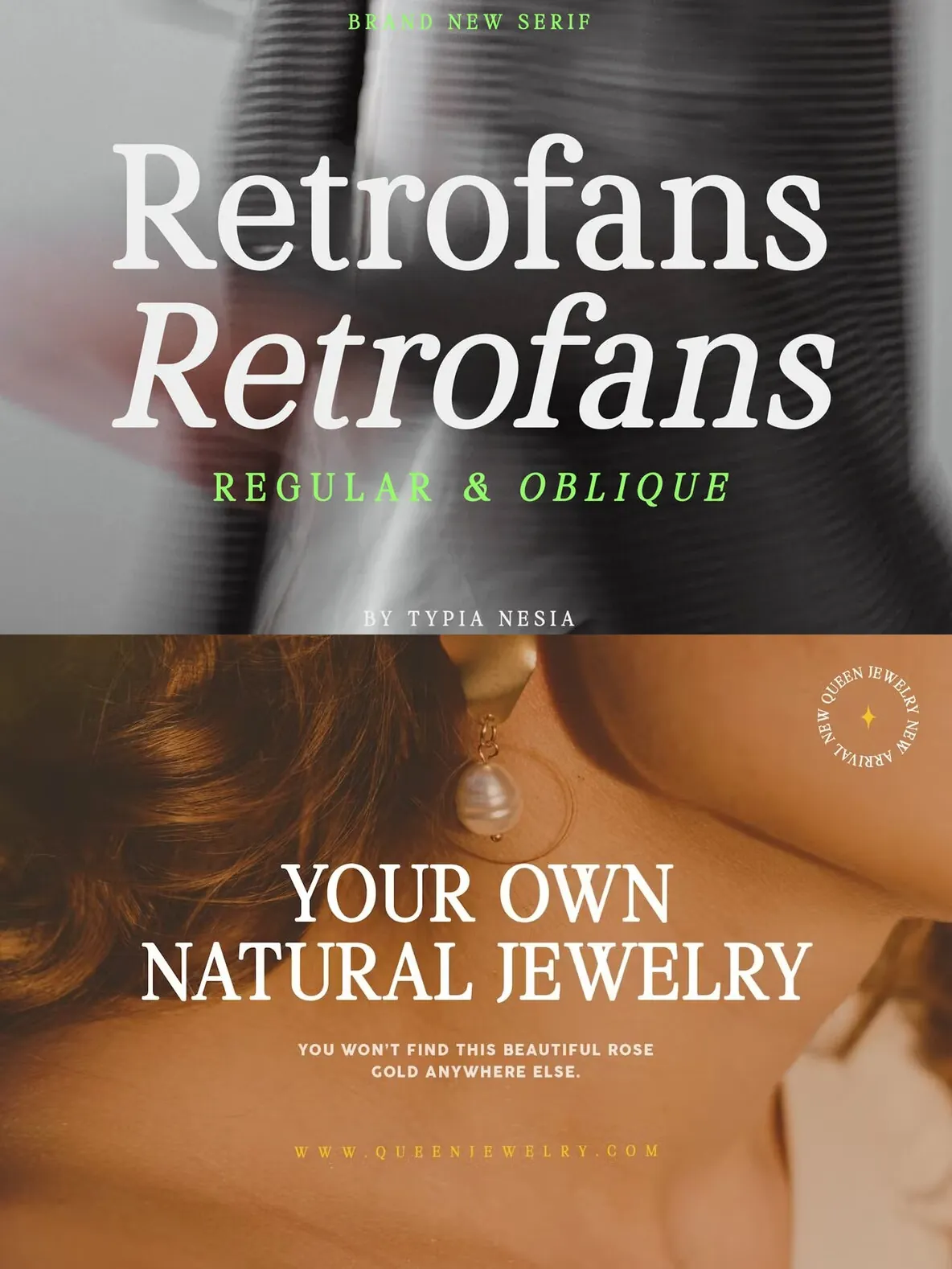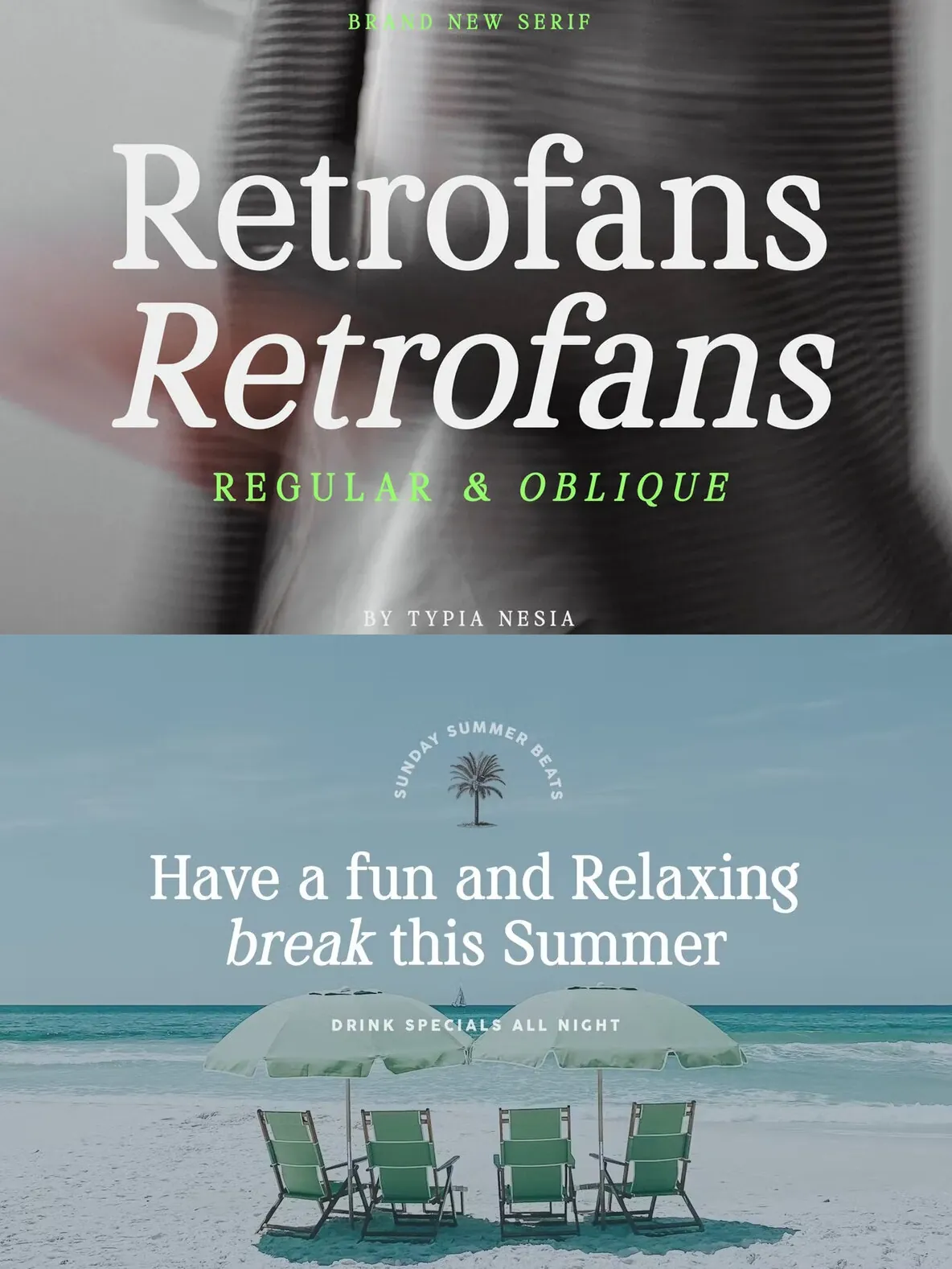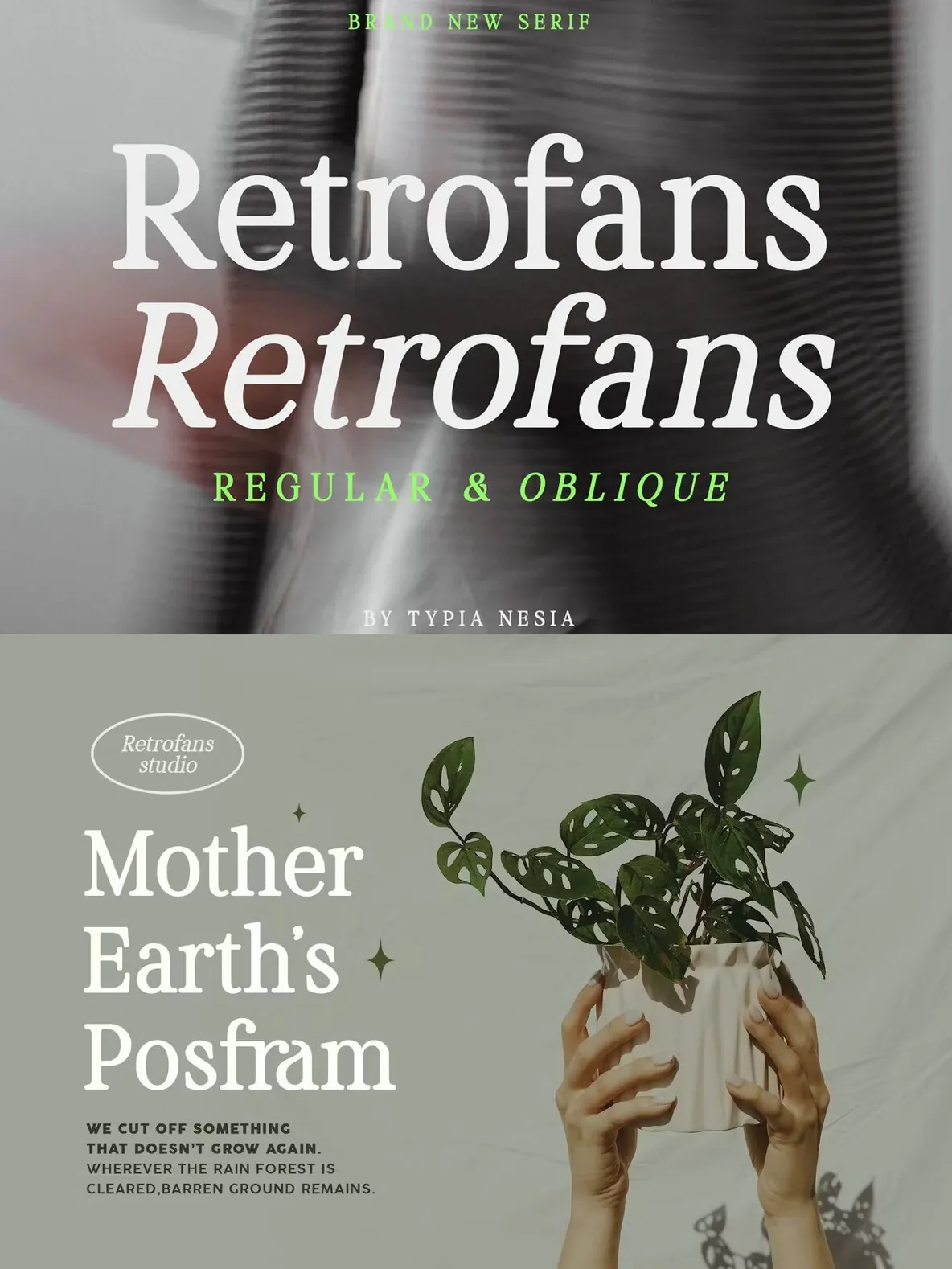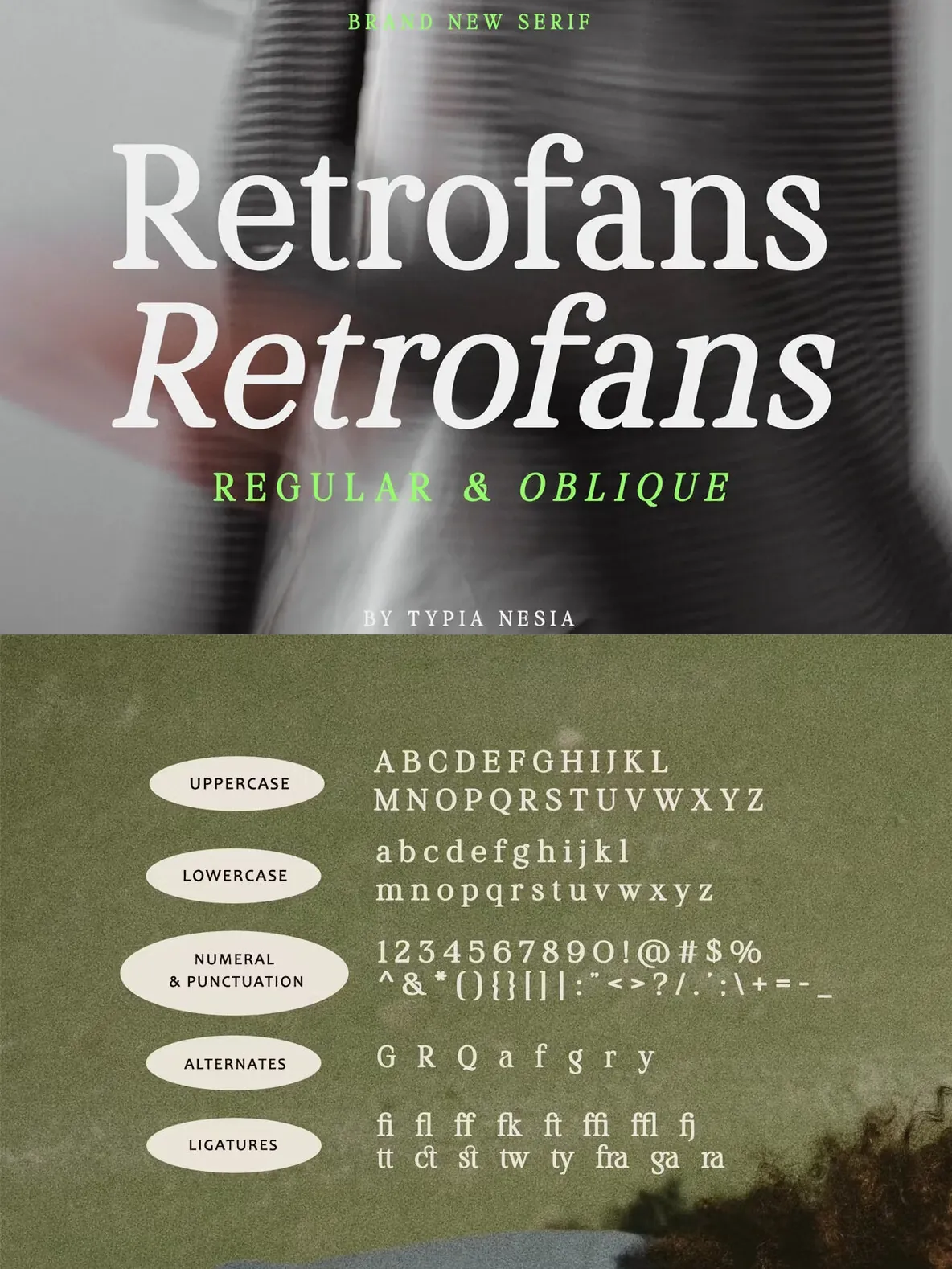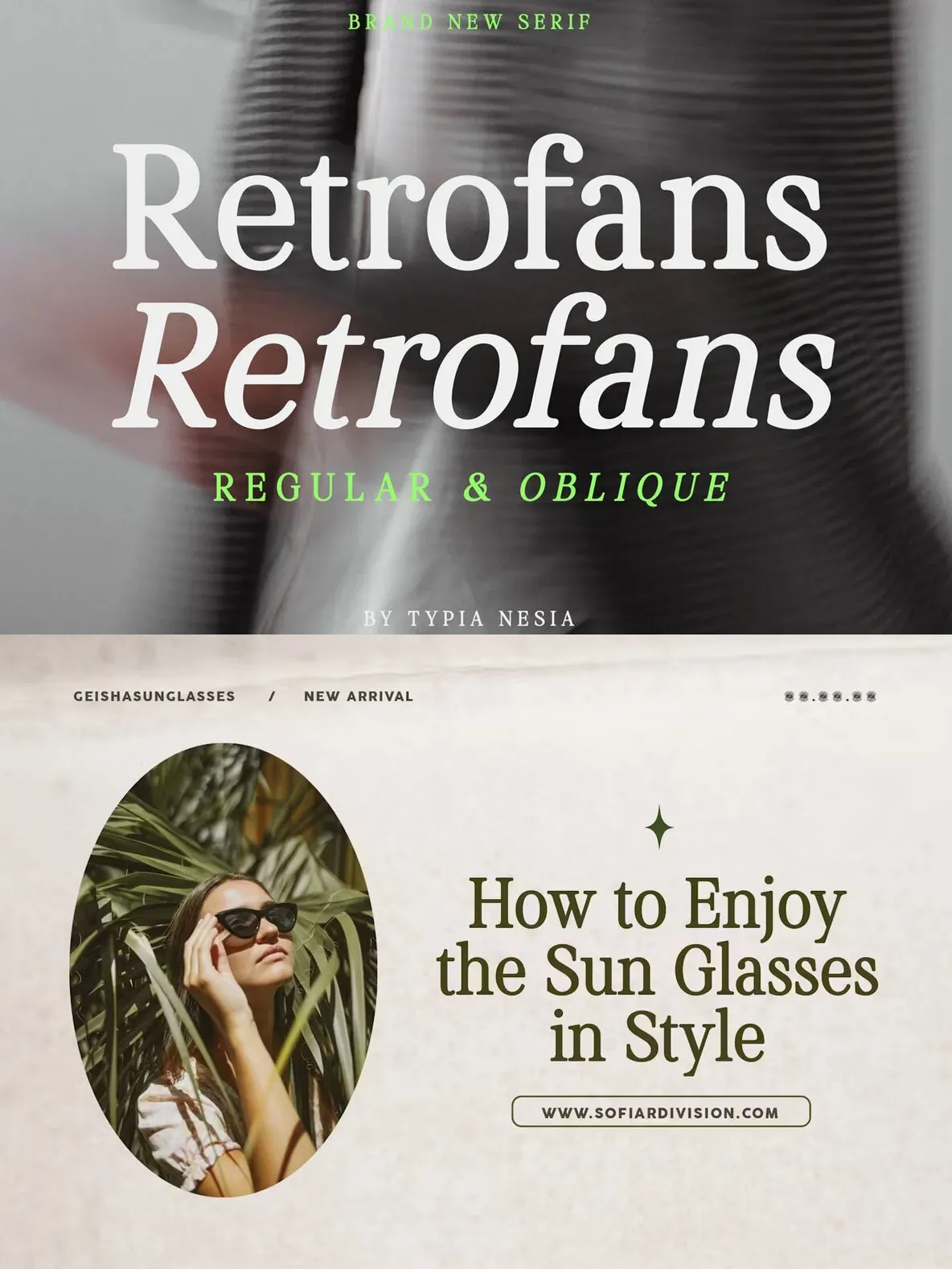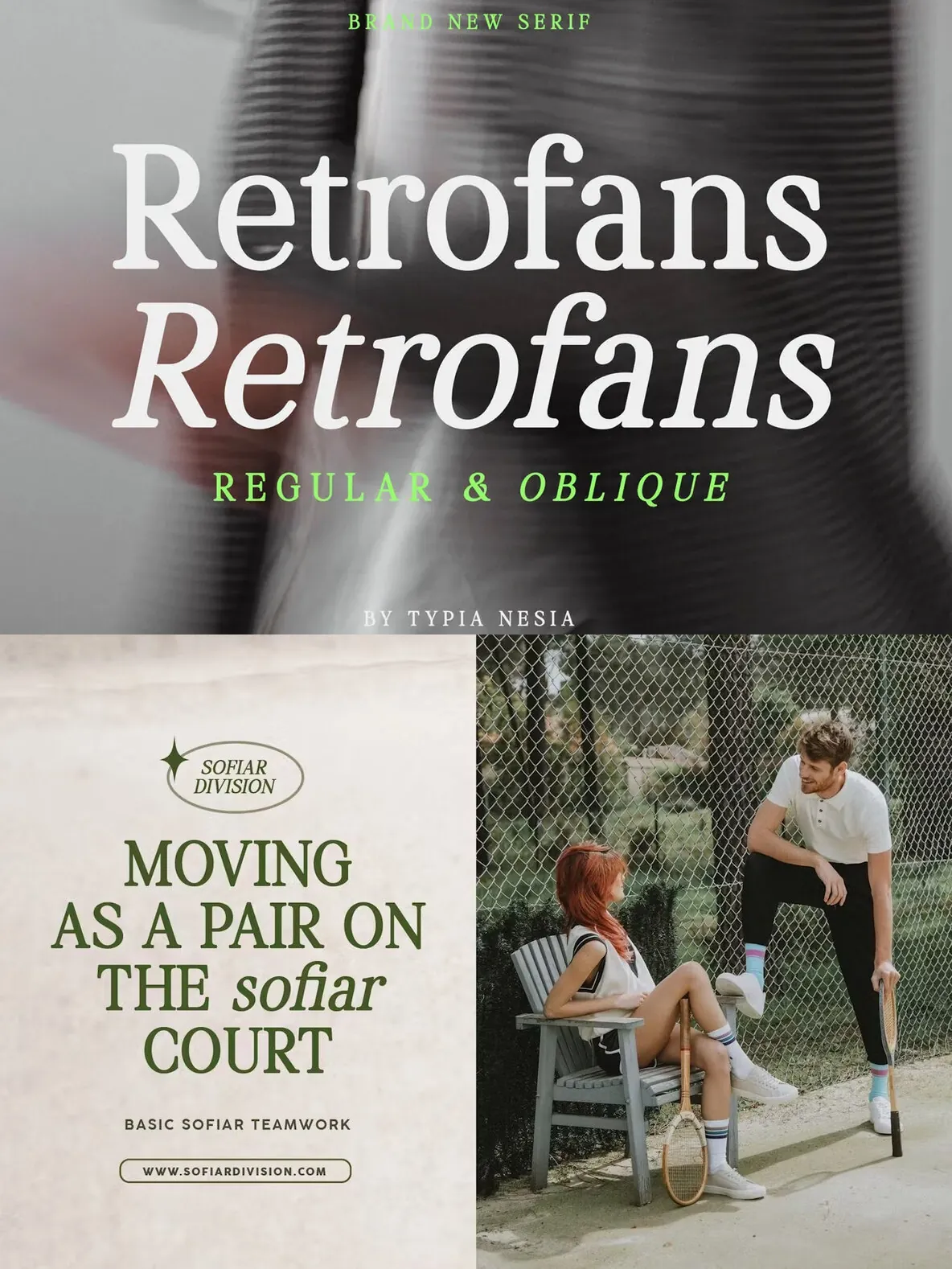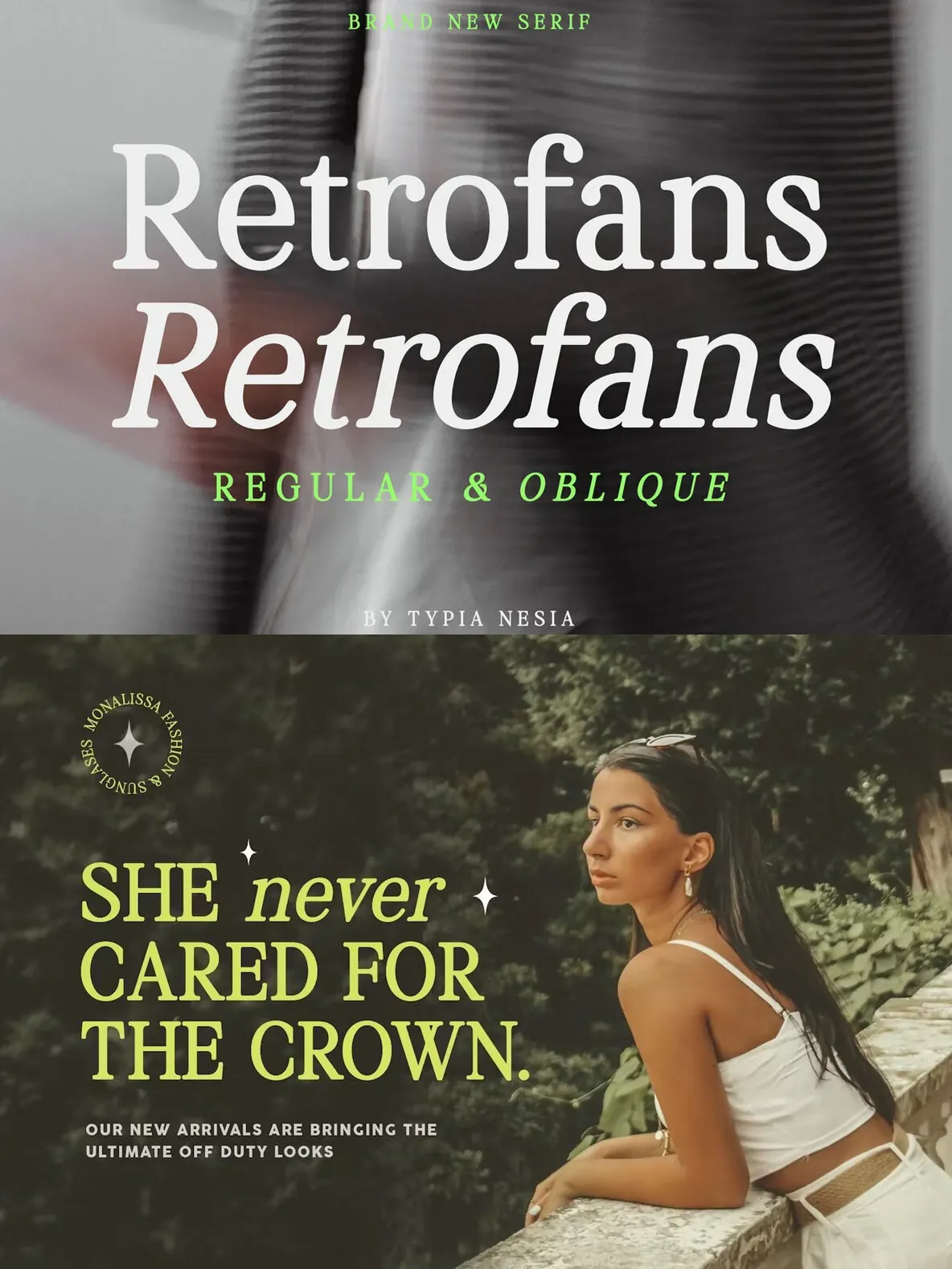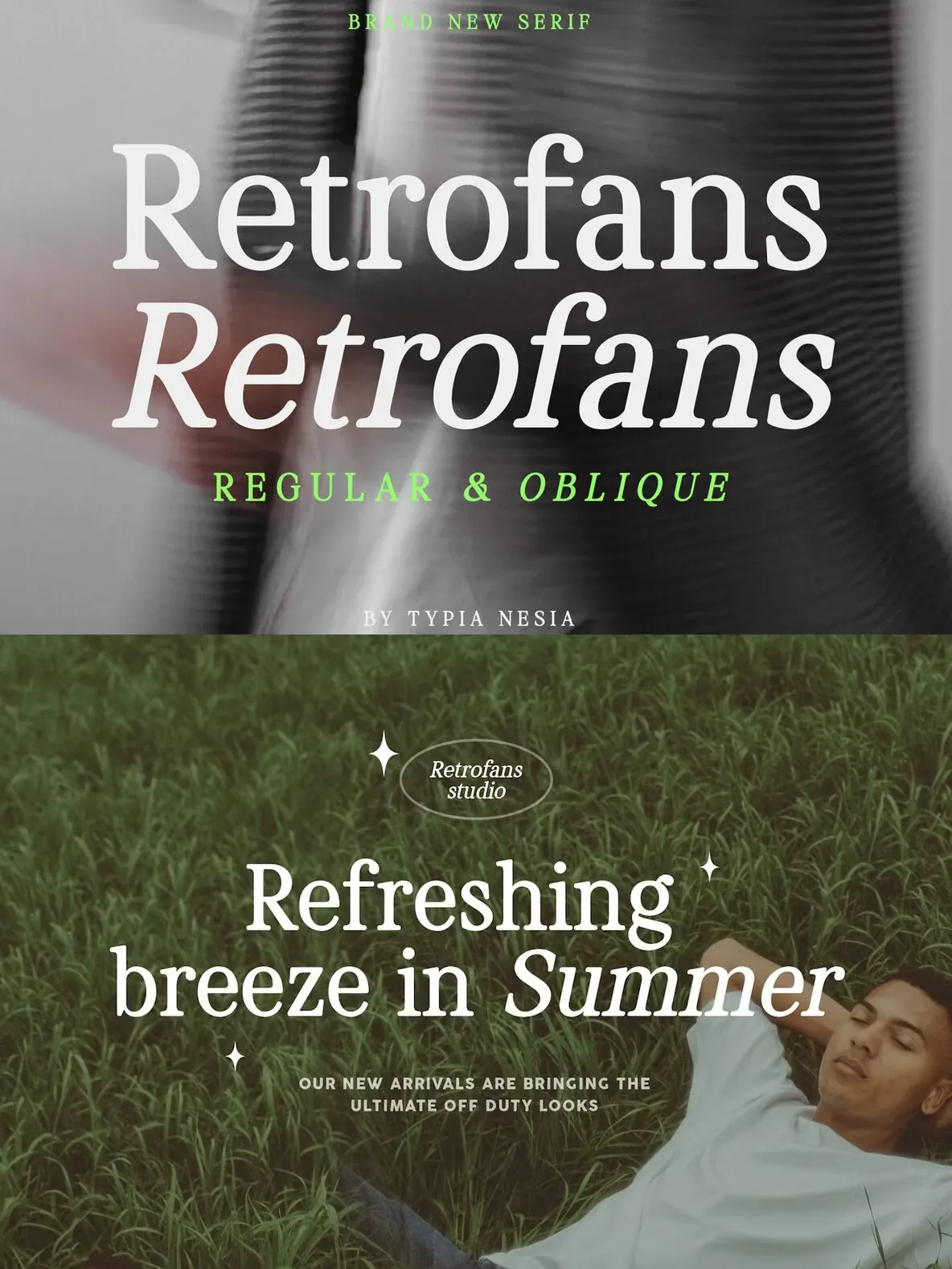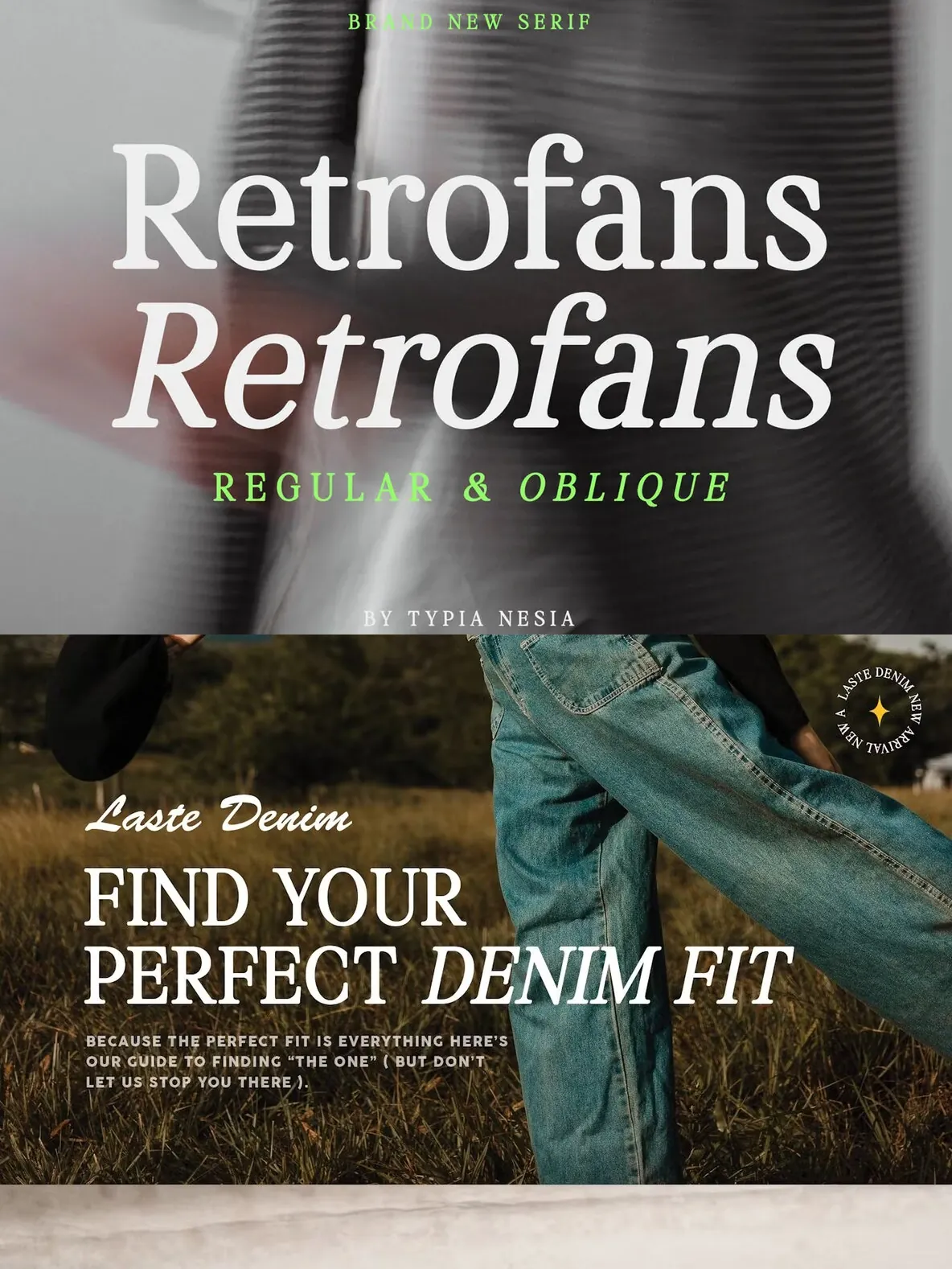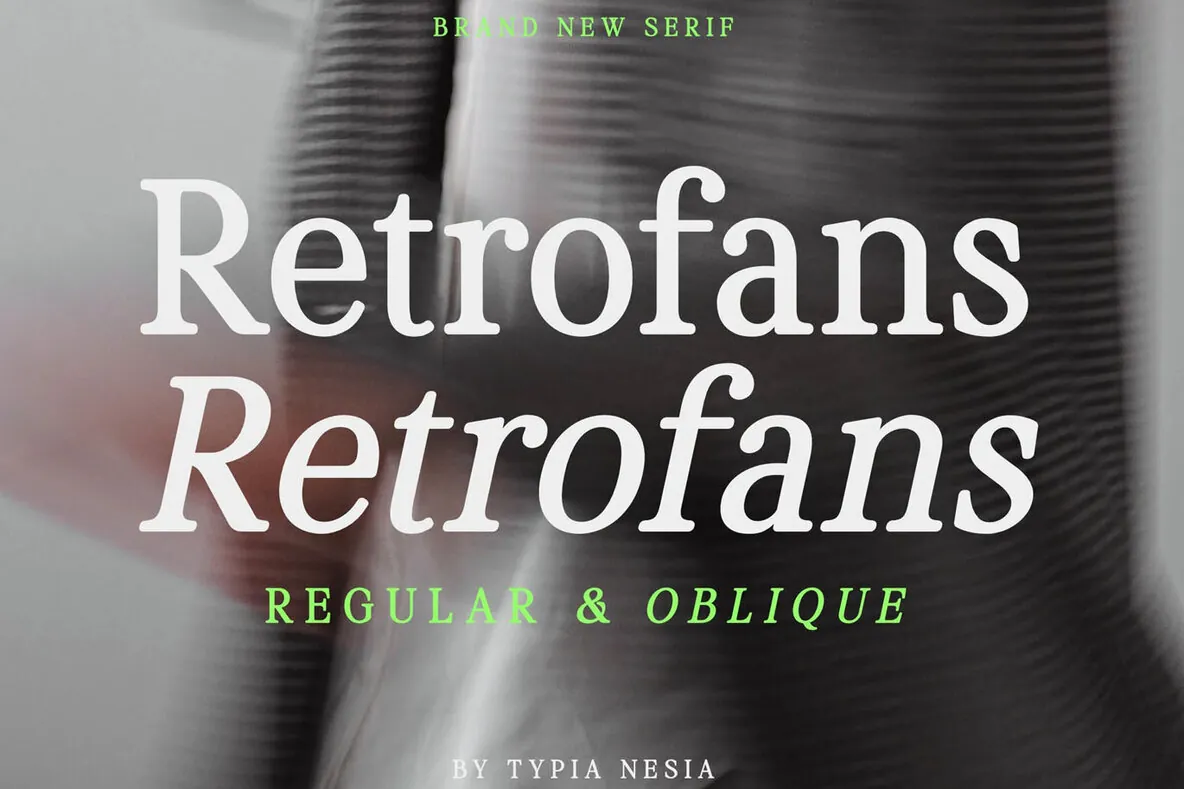
Retrofans: Nostalgic Headlines With Attitude
A classic retro display and headline serif, Retrofans Serif captures the spirit of 80s and 90s design. Its bold, nostalgic presence suits eye-catching headlines, posters, logos, and any layout that calls for vintage charm. The distinct serifs and confident weight read clearly at large sizes, making it a strong choice for branding and editorial-style typography.
Retrofans Serif comes in two styles: Regular and Oblique. Regular keeps things straightforward and timeless. Oblique introduces a subtle slant that adds energy and a playful edge without losing readability. Bold letterforms and curved details bring back the golden era of retro aesthetics, giving designers a dependable option for authentic, captivating display typography. Designed by Typia Nesia Std.